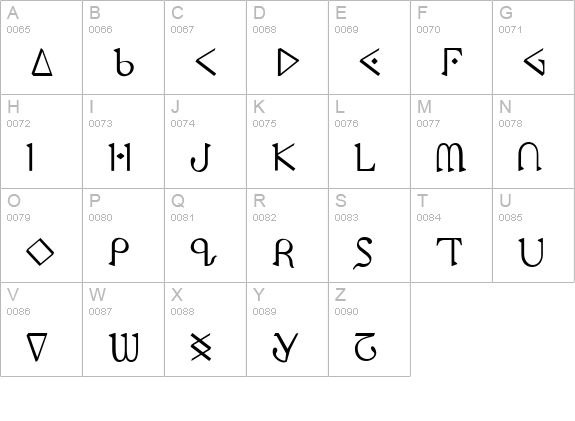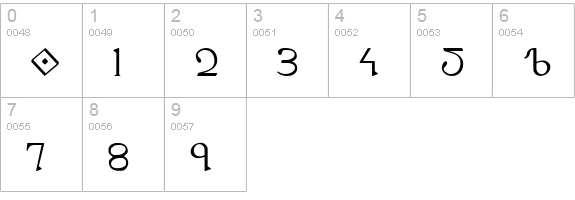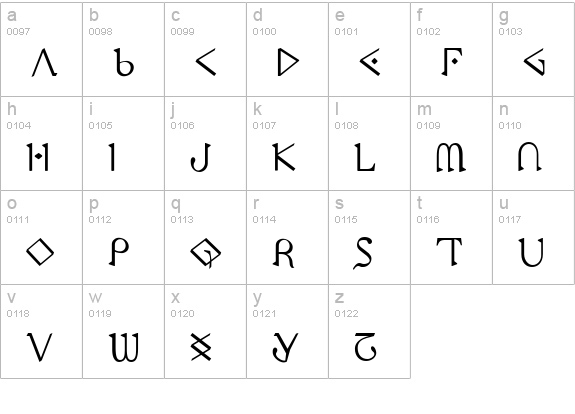
Introducing Presley Press font, a stunning display typeface that exudes elegance and modernity. With its sleek lines and sharp edges, Presley Press adds a touch of sophistication to any design project. This versatile font is perfect for creating eye-catching headlines, logos, posters, and more. What sets Presley Press font apart is not only its stylish aesthetics but also its accessibility. Designed with designers in mind, this font is free to download at FontsMarket.com. Yes, you heard that right - you can add this beautiful typeface to your collection without spending a penny. Don't miss out on the opportunity to elevate your designs with the exquisite Presley Press font. Download it now and watch your creations come to life in a whole new way.